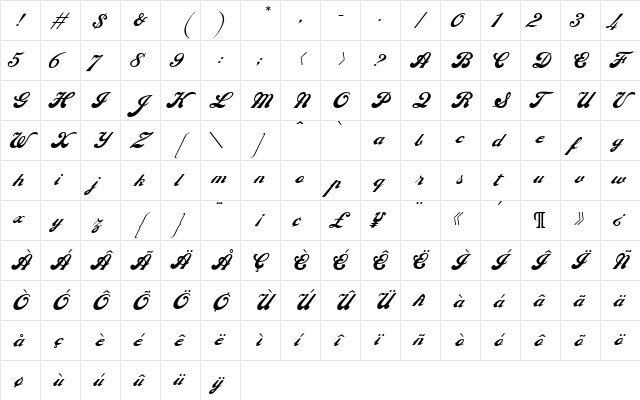
EborScript Regular
Design Context for EborScript Typeface
EborScript flows with the natural rhythm of handwritten lettering, making it ideal for designs that call for warmth and personal expression.
Font Pairing: Combine EborScript with a simple geometric sans for maximum contrast — the tension between flowing curves and clean structure is a classic typographic pairing.
Pro Tip: Pair EborScript with a clean sans-serif for supporting text. The contrast between fluid script and geometric structure creates an elegant typographic hierarchy.